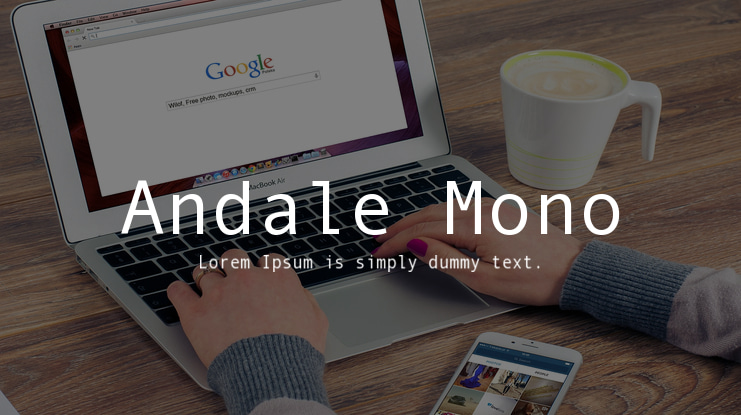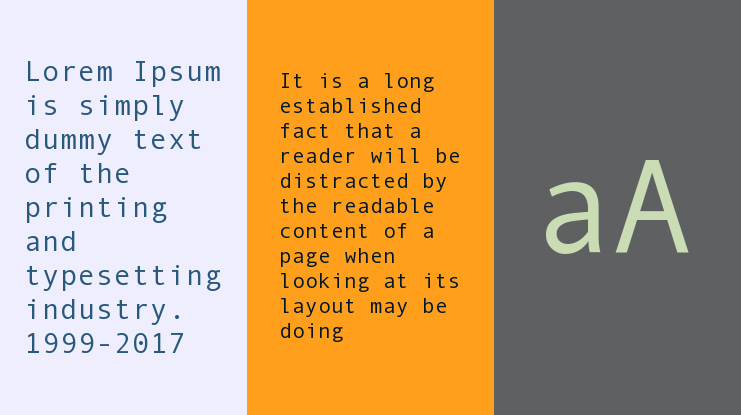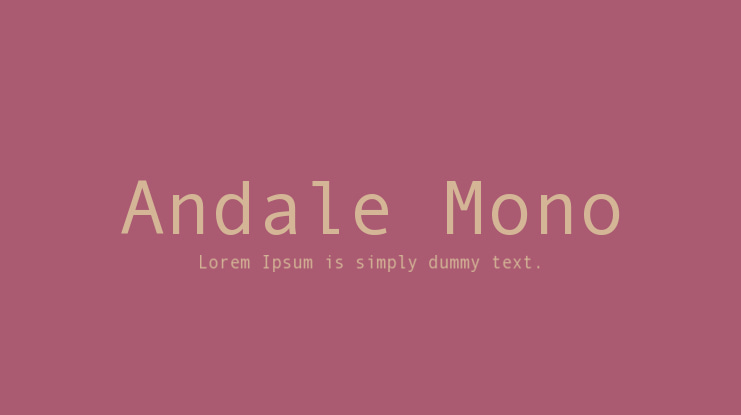
Andale Mono Font
Steven R. Matteson
Andale Mono is a monospaced sans-serif typeface designed by Steve Matteson for terminal emulation and software development environments, originally for the Taligent project by Apple Inc. and IBM.